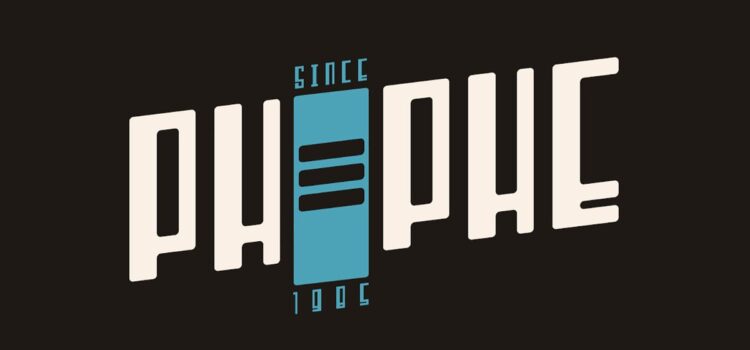
phephe
Phephe Font – Free Download Introduction to Phephe Font Phephe is a fun decorative font based on vintage design, meant to stimulate your lovely design work. 📸 Preview Gallery 4 images 📌 Product Name Phephe Font 👤 Author Factory738 📂